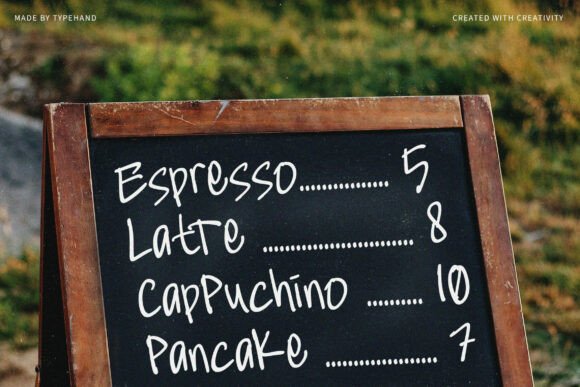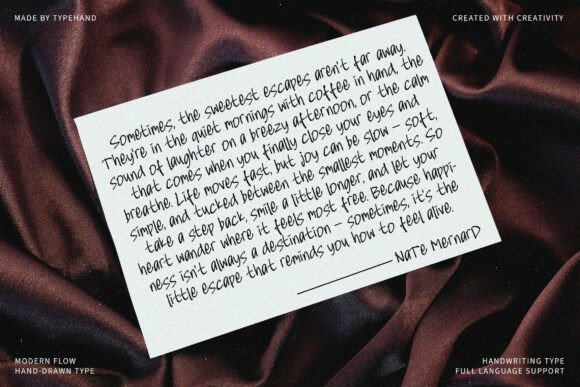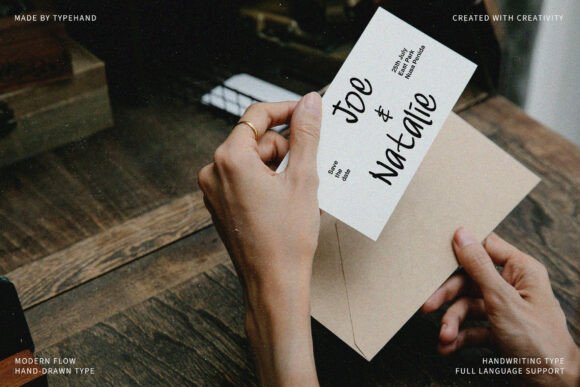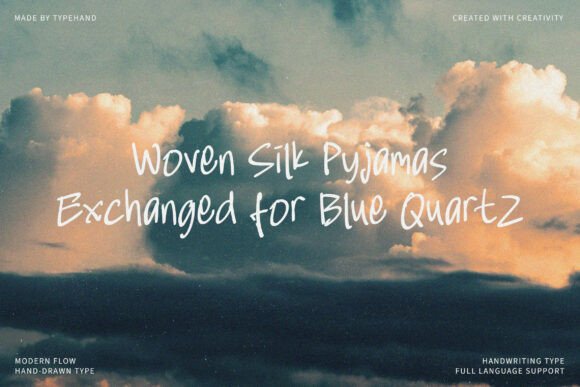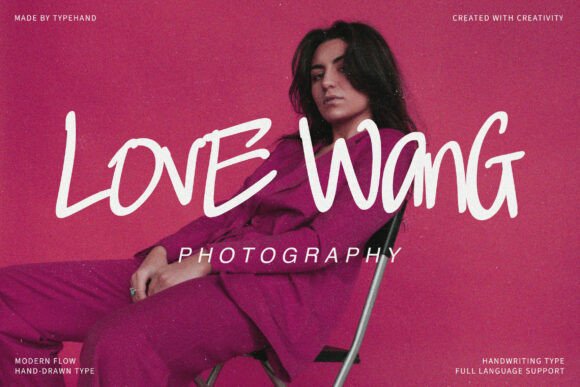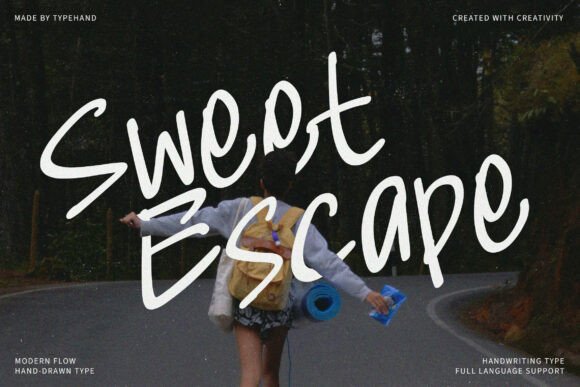
Introduction to Coldnight Font
ColdNight is a modern handwritten font inspired by spontaneous notes, relaxed creativity, and expressive everyday moments.
Featuring natural hand-drawn strokes and a smooth handwritten rhythm, this handwritten font brings an authentic and approachable personality to your designs What makes ColdNight stand out is its free-flowing letterform style and naturally imperfect character rhythm.